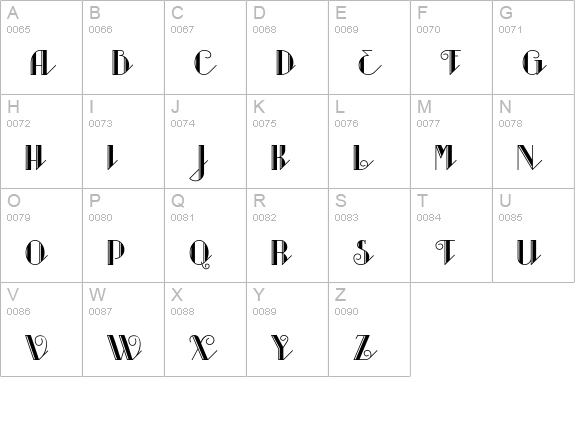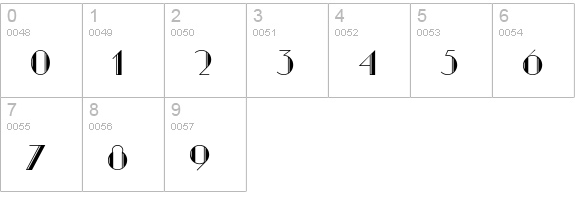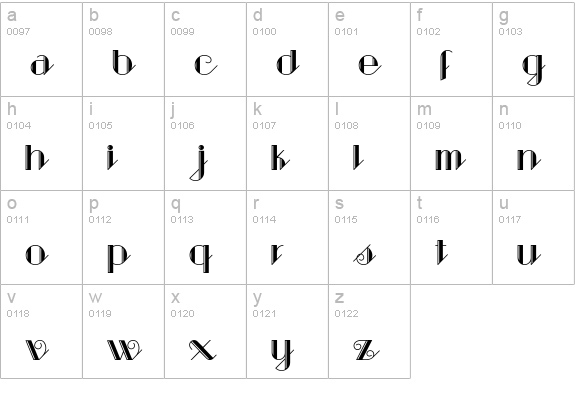
Sarsaparilla Font Details
Sarsaparilla font is a beautifully crafted typeface that exudes a perfect blend of sophistication and charm. With its elegant curves and graceful strokes, this font brings a sense of vintage nostalgia and timeless elegance to any project it graces. The Sarsaparilla font is uniquely designed with a touch of hand-drawn artistry, giving it a distinct personality that stands out among other fonts. Its smooth lines and perfect balance make it a versatile choice for both print and digital designs, adding a touch of class and sophistication to any project. What sets Sarsaparilla font apart is that it is freely available to download at FontsMarket.com. This means that designers and creatives from all walks of life can access this exceptional font without any cost, making it accessible to everyone. Whether you're a professional graphic designer or a beginner exploring the world of typography, Sarsaparilla font offers you the opportunity to enhance your creative endeavors without breaking the bank. With its wide range of weights and styles, Sarsaparilla font offers endless possibilities for creative expression. From elegant headlines to stylish logos, from vintage-inspired posters to modern branding, this font can adapt and elevate any design concept. Its versatility and timeless appeal make it a go-to choice for designers looking to make a lasting impression. In conclusion, Sarsaparilla font is a true gem in the world of typography. Its exquisite design, coupled with its availability as a free download at FontsMarket.com, makes it an irresistible choice for any creative project. So why wait? Dive into the world of Sarsaparilla font and let your creativity soar to new heights.